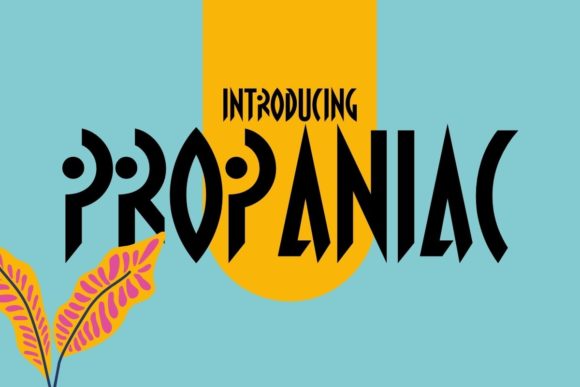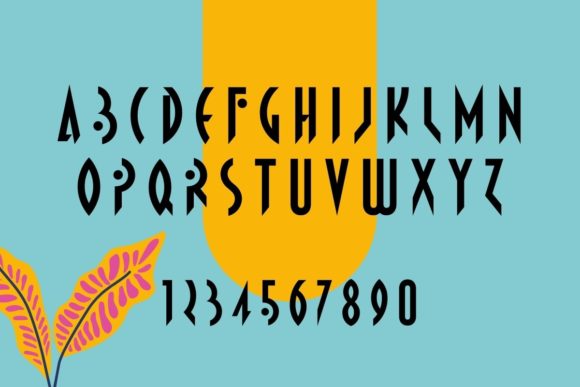
Propaniac
About Propaniac Font
Propaniac is a postmodern, all-caps display font that has smooth lines and geometric elements that give it its futuristic style.